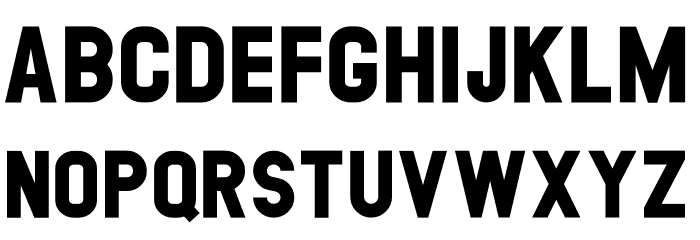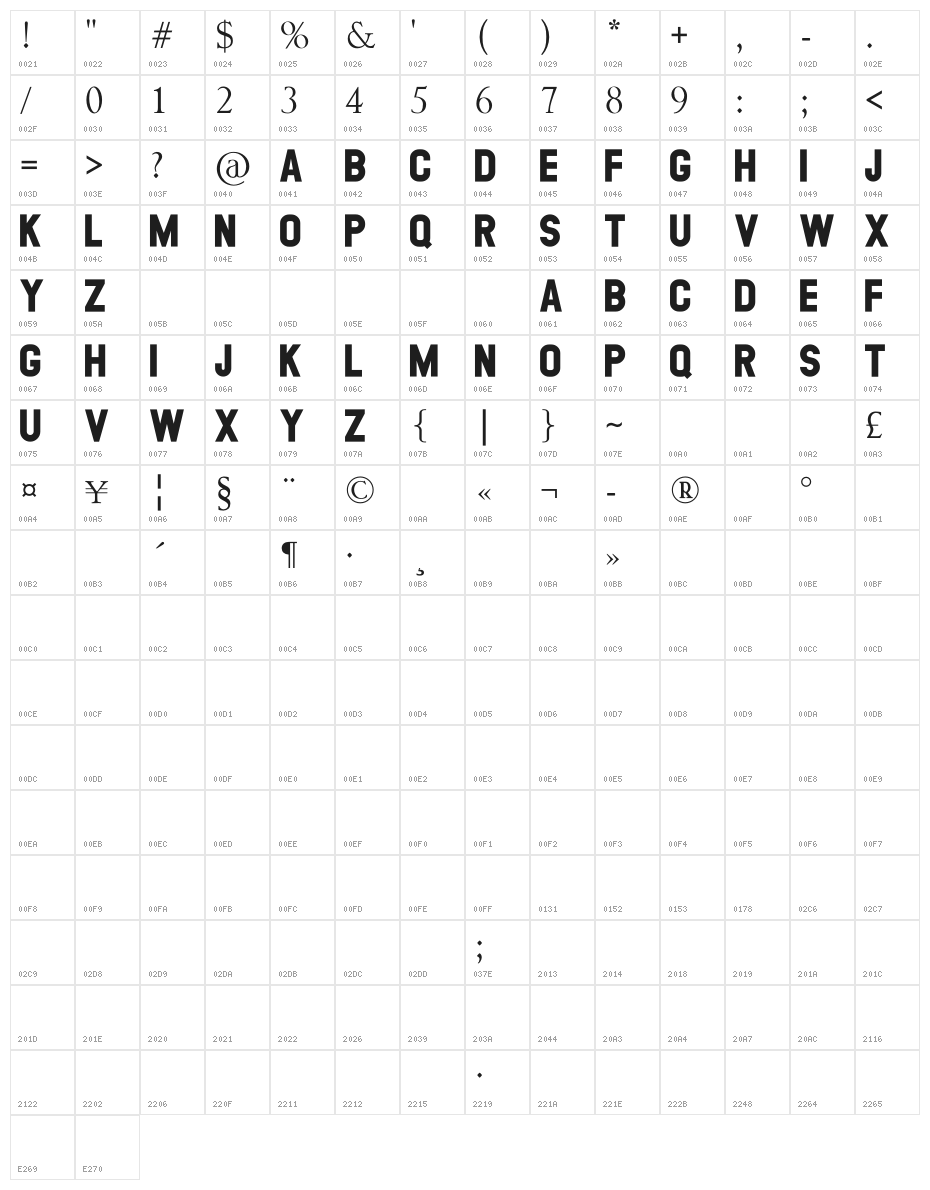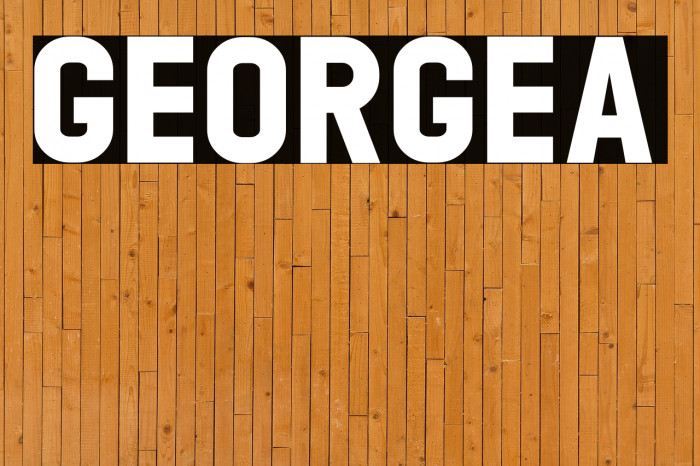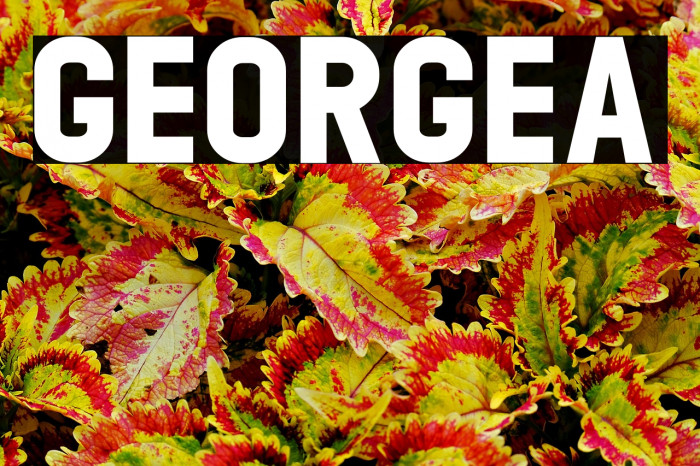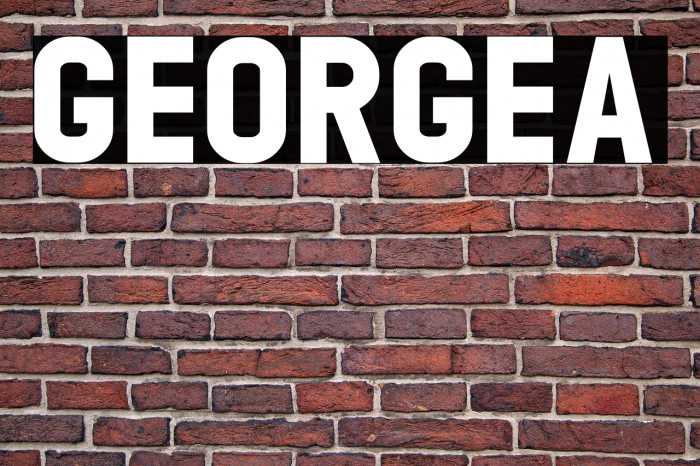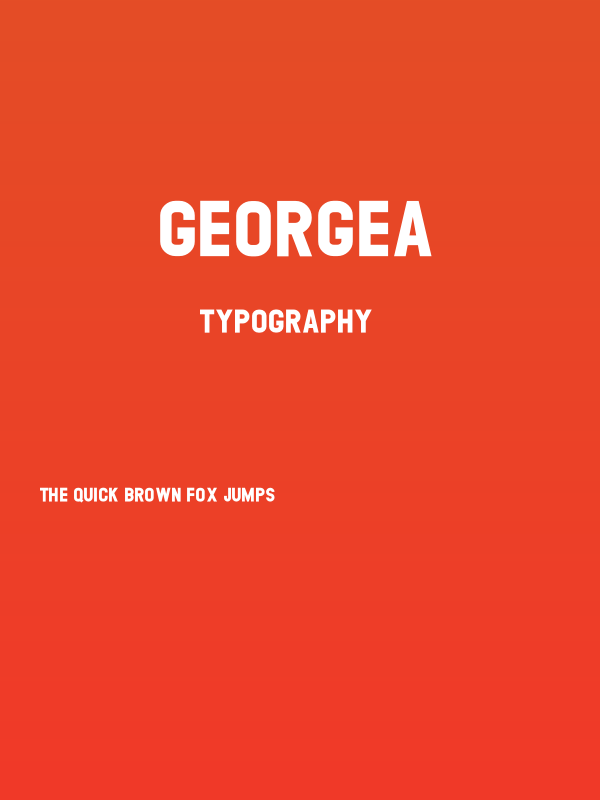
GEORGEA Font
This font exhibits a bold and impactful style, characterized by its strong, thick strokes and clean lines. The uppercase letters are uniform in height, creating a cohesive and structured appearance. The lowercase letters maintain a similar weight, ensuring consistency throughout the typeface. The numerals are distinct and easily readable, with a slight curvature that adds a touch of elegance. Special characters are well-defined, complementing the overall bold aesthetic. This font's design is modern and versatile, making it suitable for various applications where clarity and emphasis are needed.
A bold, modern font with strong strokes and clean lines, ideal for impactful designs.
- Proposed Projects: This font is perfect for branding, advertising, headlines, and any project requiring a strong visual impact.
- Use Case: Headlines, Logos, Advertising